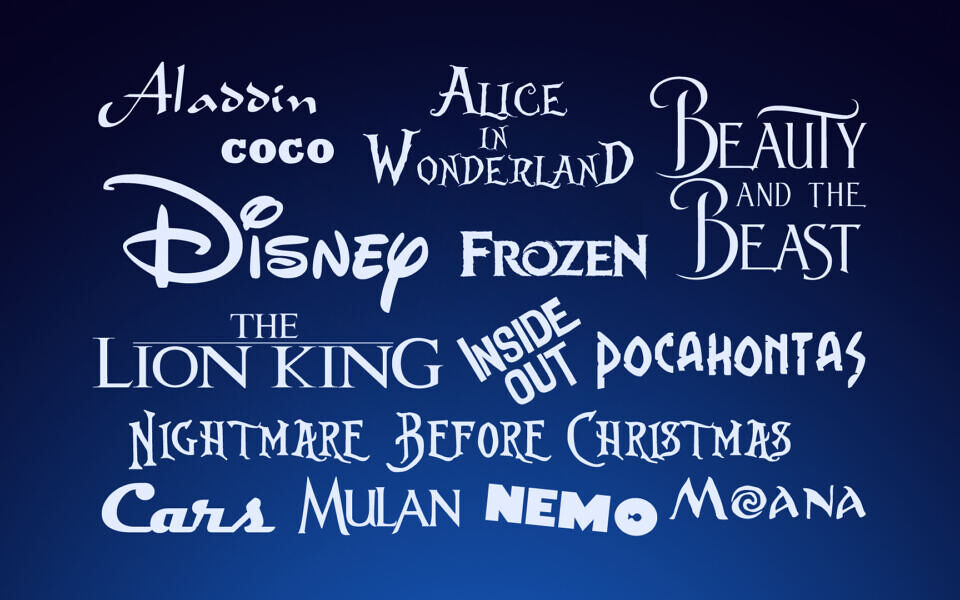
Disney’s magic isn’t just in its stories; it’s also in the typography that brings its worlds to life. From iconic titles to whimsical lettering, Disney films and animations use distinctive fonts that help shape their visual identity. In this collection, we explore the Disney Family Fonts: typefaces inspired by the magical style seen across beloved Disney movies and animated classics.
Some fonts are the original ones used in the logos, while others were created by fans with a similar look. Feel free to choose the ones you like best.
Here are the included fonts:
- Aladdin Logo Font
- Alice In Wonderland Logo Font
- Beauty and the Beast Logo Font
- Brave Logo Font
- Cars Logo Font
- Cinderella Logo Font
- Coco Logo Font
- Disney Logo Font
- Disneyland Logo Font
- Encanto Logo Font
- Frozen Logo Font
- Hercules Logo Font
- Hocus Pocus Logo Font
- Inside Out Logo Font
- Lilo & Stitch Logo Font
- Lion King Logo Font
- Little Mermaid Logo Font
- Mickey Ears Logo Font
- Minnie Logo Font
- Moana Logo Font
- Monster Logo Font
- Mulan Logo Font
- Nemo Logo Font
- New Walt Disney Logo Font
- Nightmare Before Christmas Logo Font
- Pirates Caribbean Logo Font
- Pocahontas Logo Font
- Princess and the Frog Logo Font
- Raya and the Last Dragon Logo Font
- Tangled Logo Font
- Tarzan Logo Font
- The Incredibles Logo Font
- Toy Story Logo Font
- Walter Logo Font
- Waltograph Logo Font
- Zootopia Logo Font